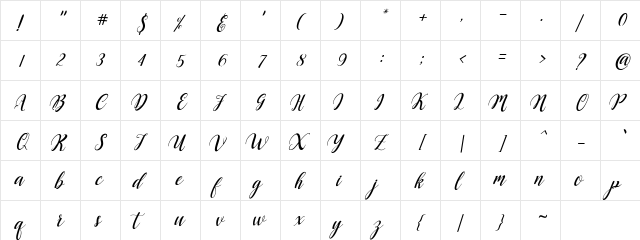
Maisara Script Regular
Design Context for Maisara Script Typeface
Maisara Script brings a calligraphic fluidity to the page — its connecting strokes and expressive curves give it an unmistakably human quality.
Font Pairing: Combine Maisara Script with a simple geometric sans for maximum contrast — the tension between flowing curves and clean structure is a classic typographic pairing.
Pro Tip: Use Maisara Script for short runs of text — names, titles, or taglines. Extended body copy in script faces tires the eye quickly.